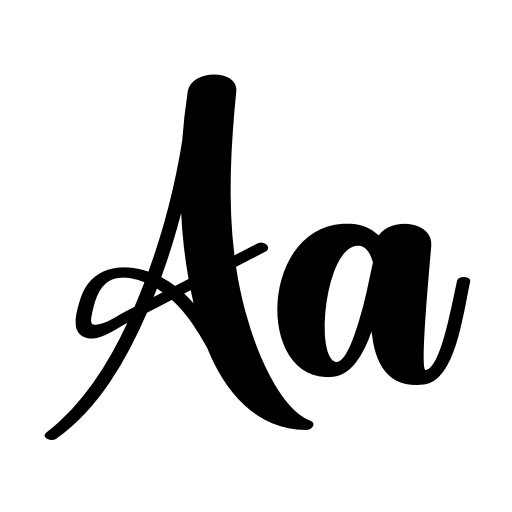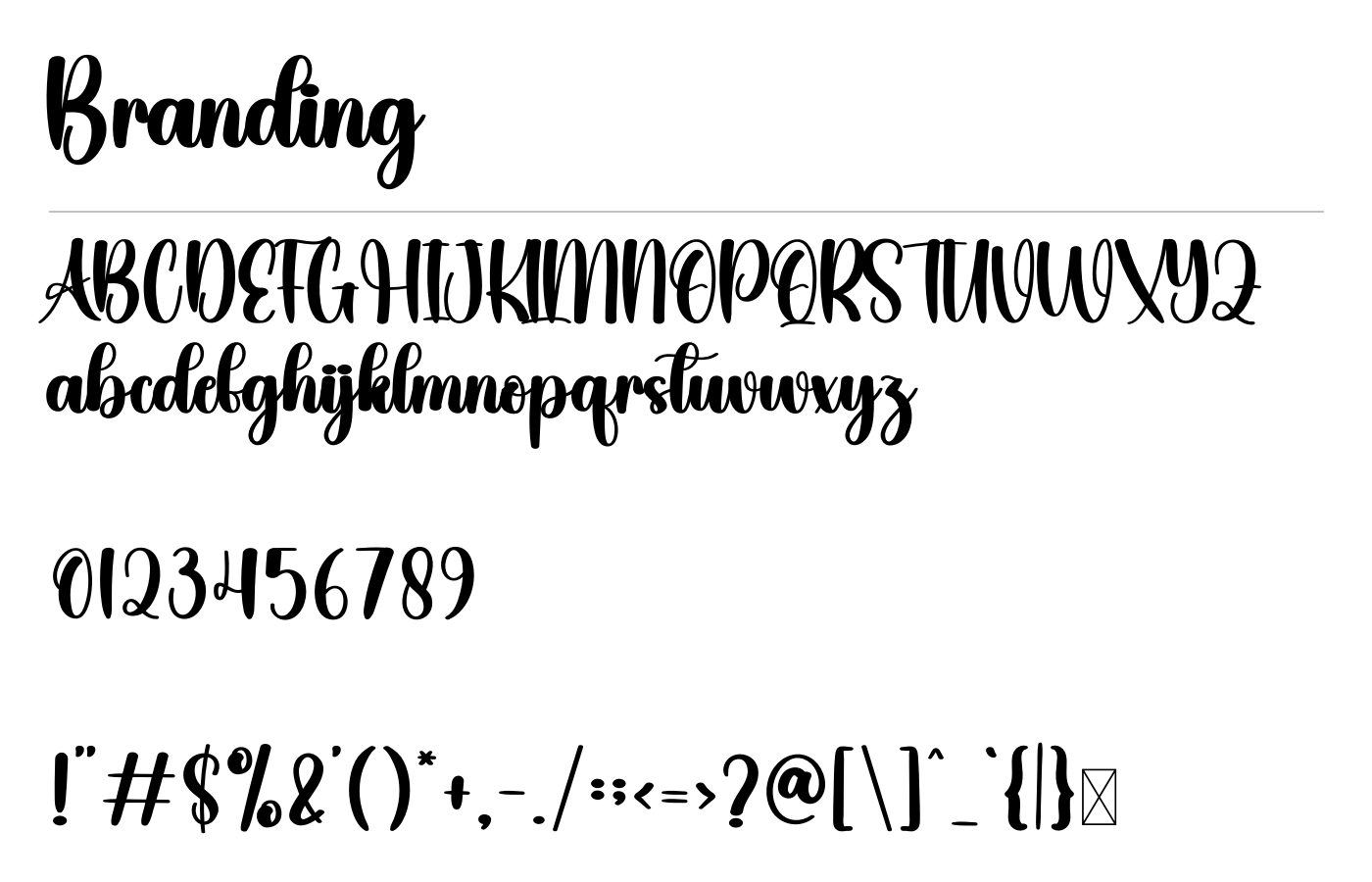
Branding Font is a lively and elegant script typeface with a bold weight and smooth, flowing strokes that create a friendly yet sophisticated look. Its playful uppercase letters with decorative loops and consistent lowercase forms make it ideal for creative branding, packaging, and headlines where a personal, handcrafted feel is desired. This font shines in designs aiming to convey warmth and charm while maintaining a modern, stylish edge.
Branding Font